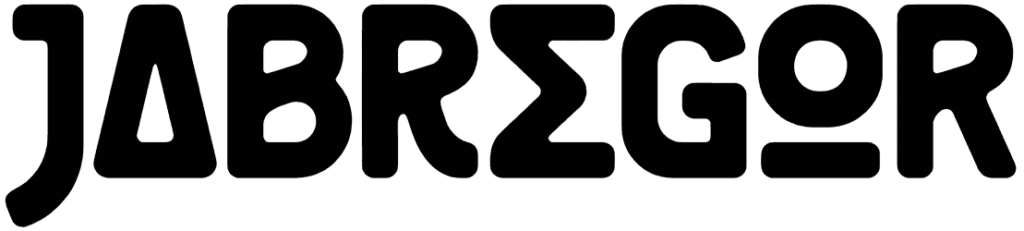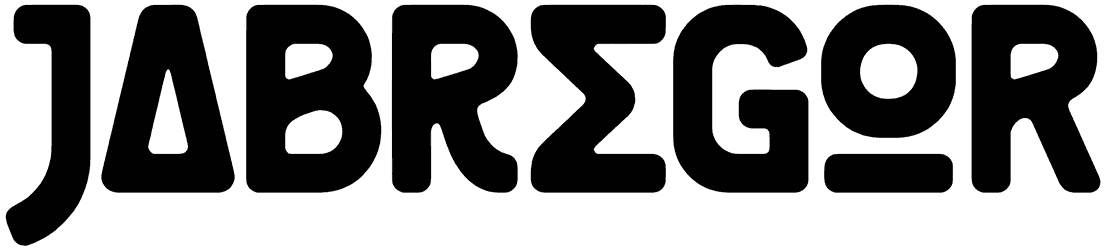
Jabregor Font
It’s not that common for a typography font to be designed with a heavy style, and that’s how Jabregor convinces you to add it to your toolkit. Most of the letters are presented in their default shape, but some of them will surprise you with their unique look.
Available with no lowercase, this sans serif font and its symbolic characters will still be there for you when you have to design business cards for workshops, carpenters, authors, and more.